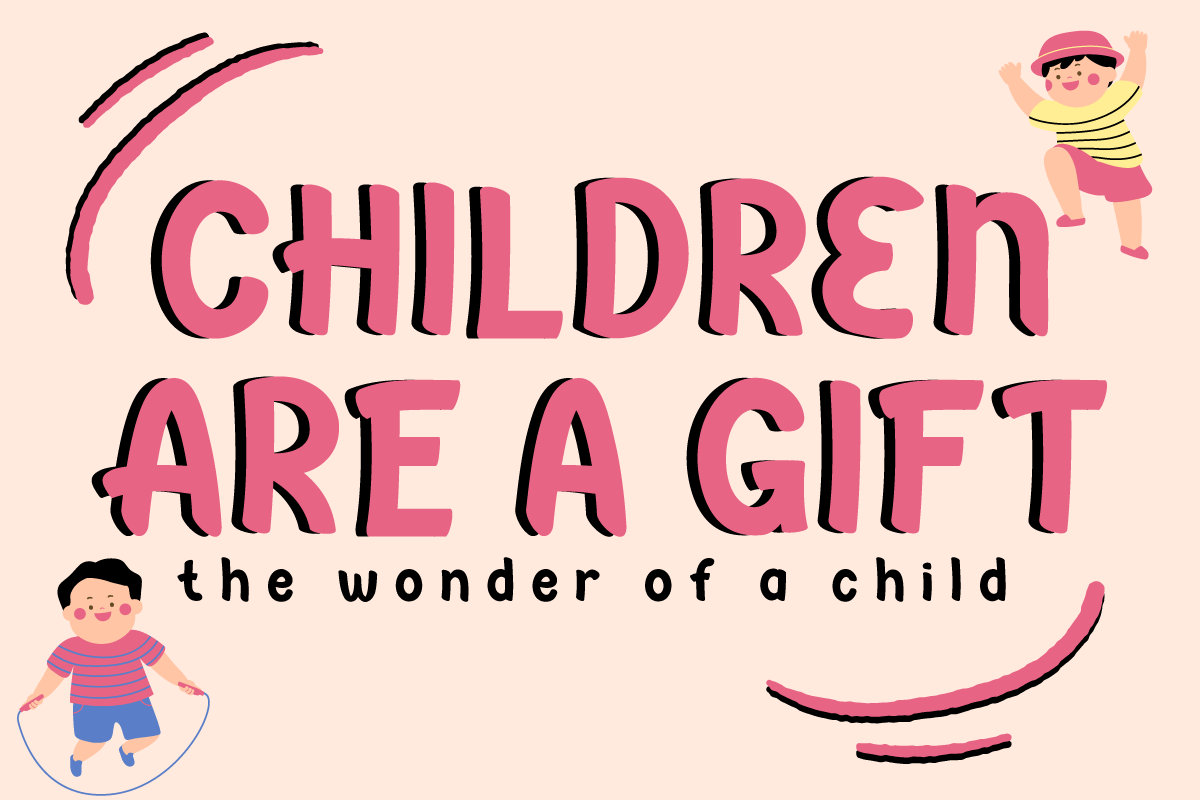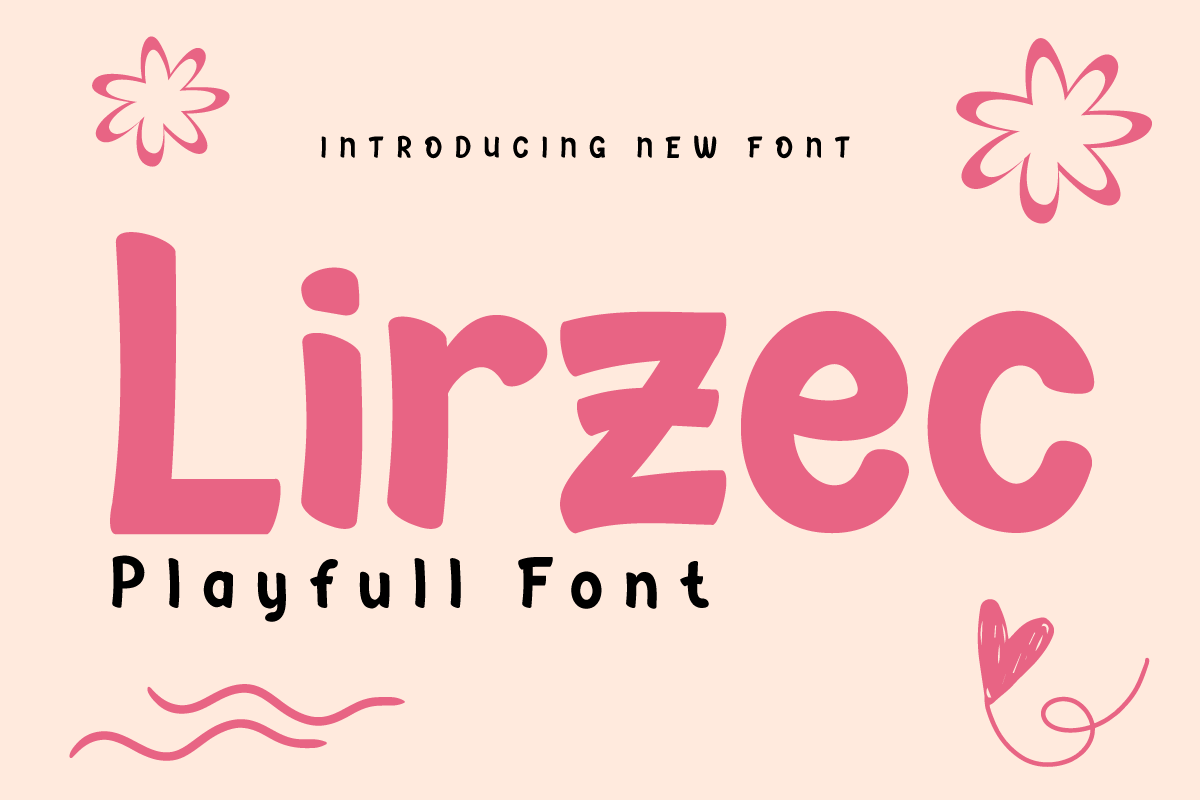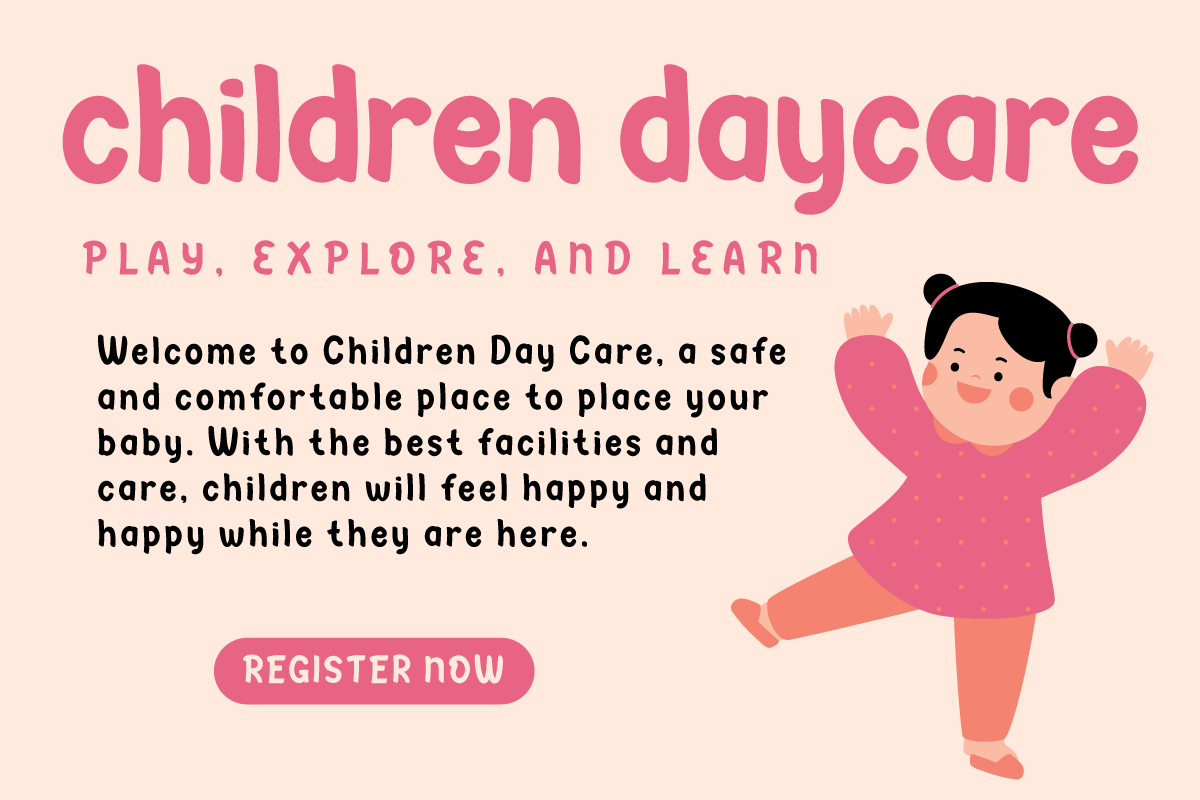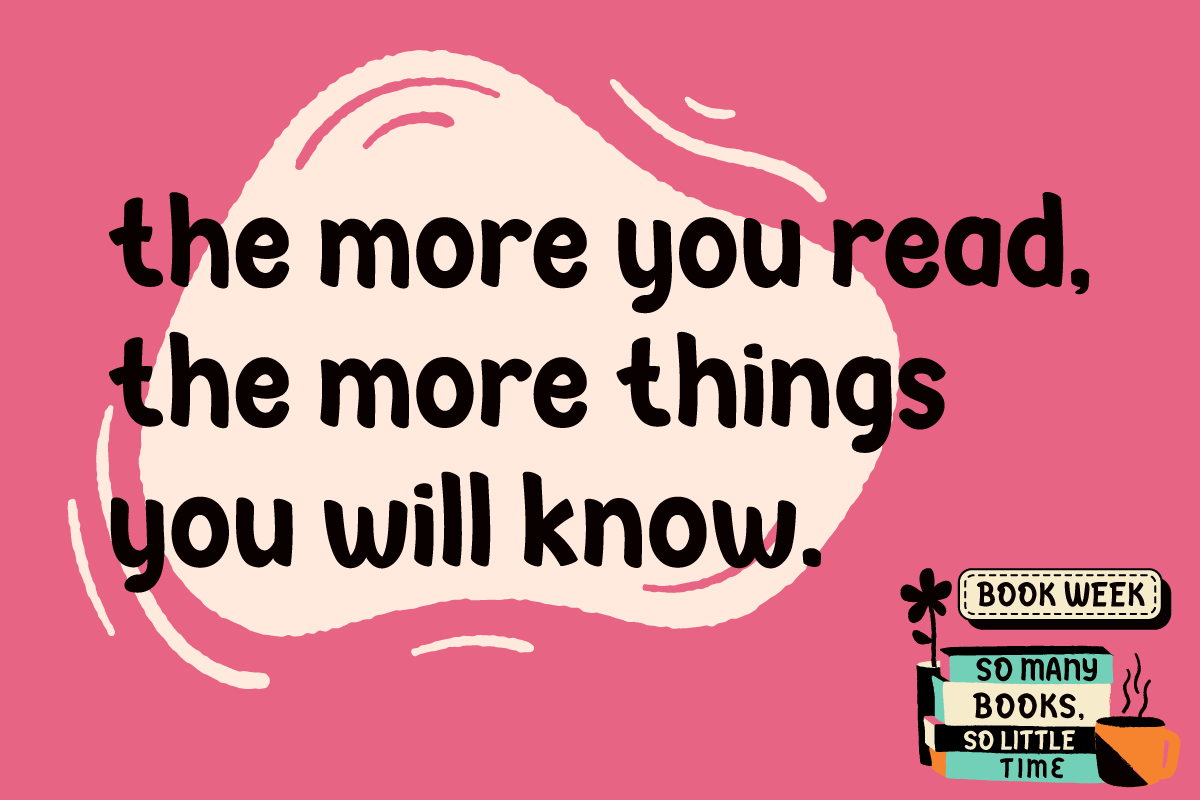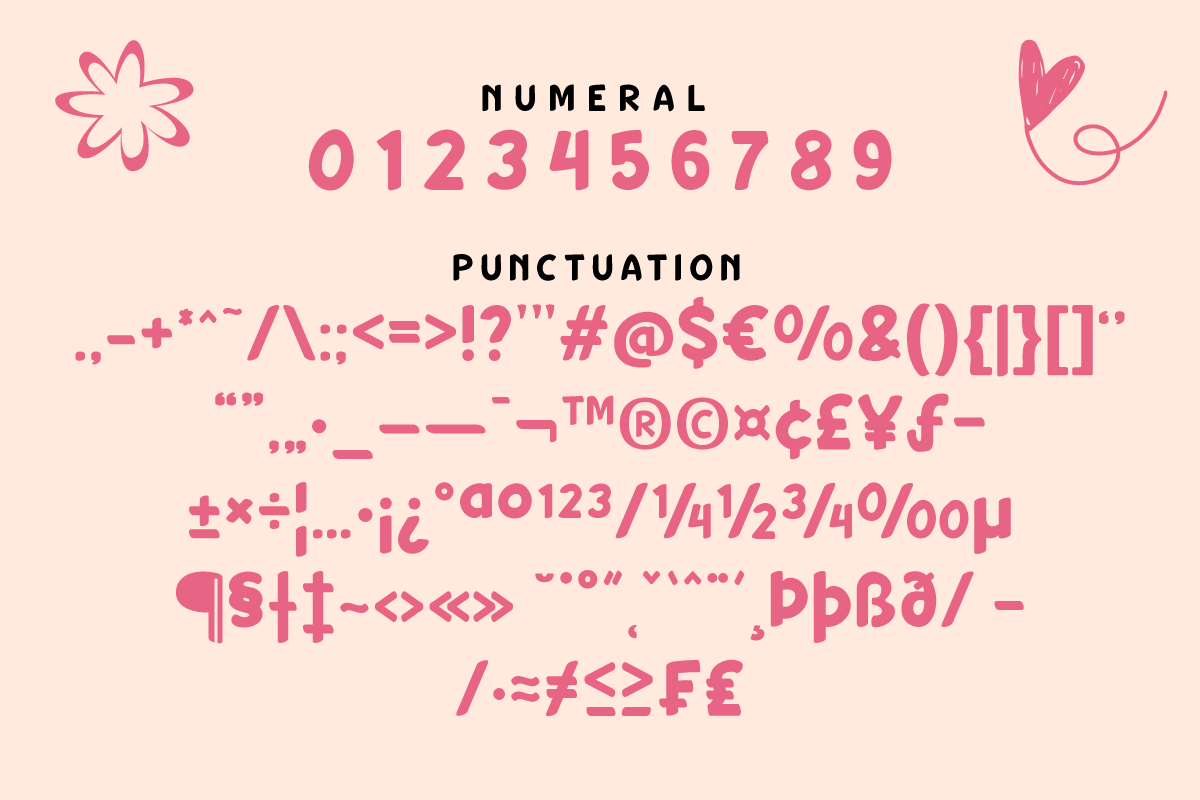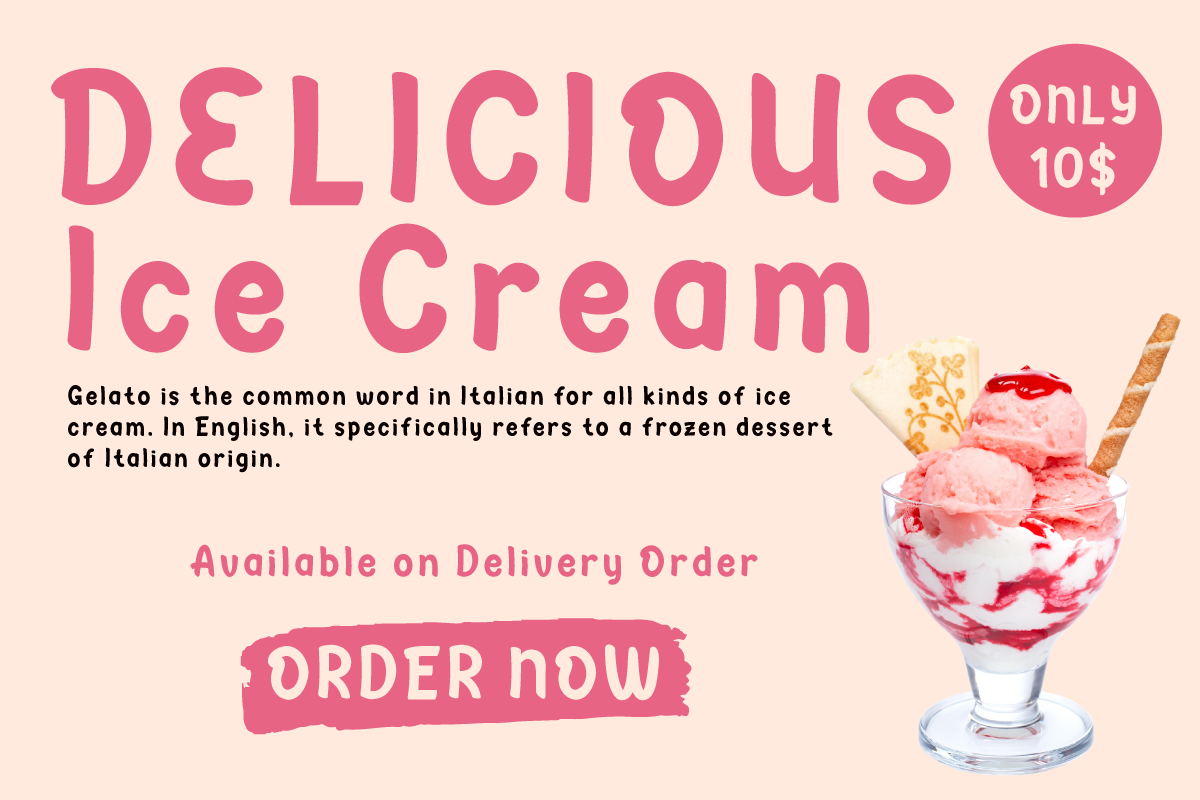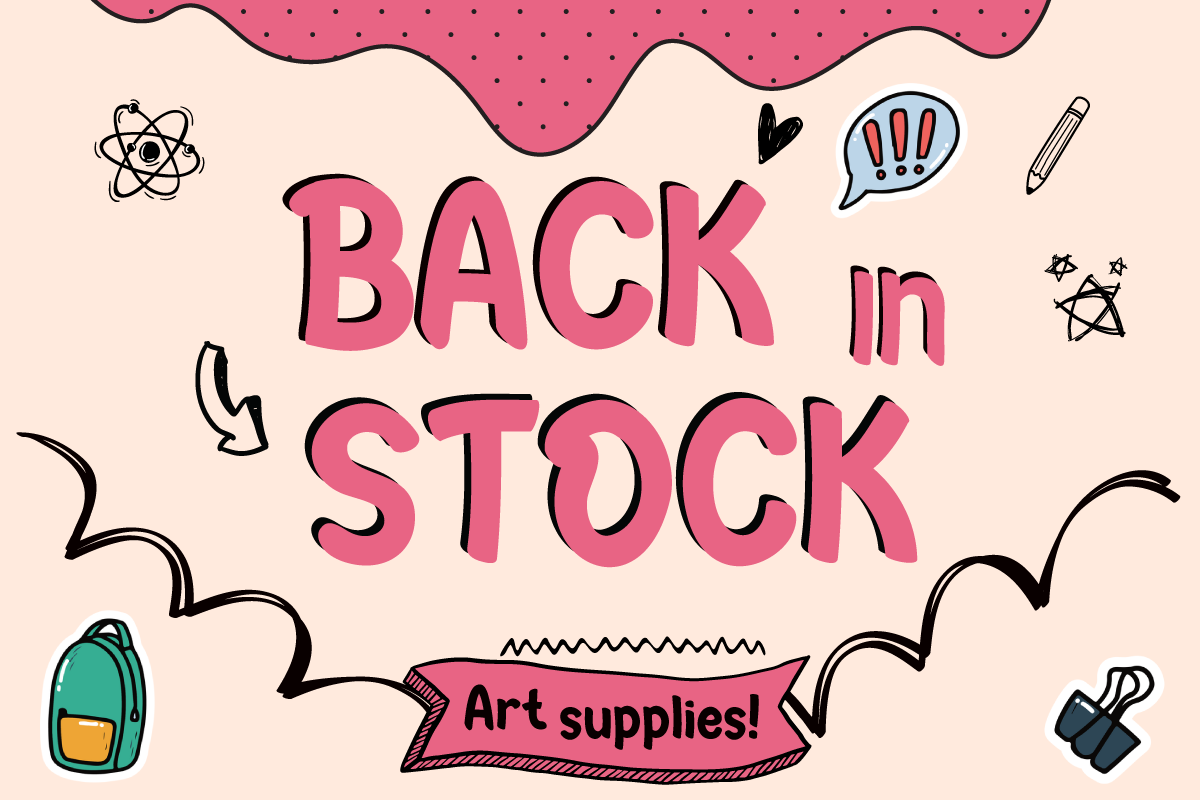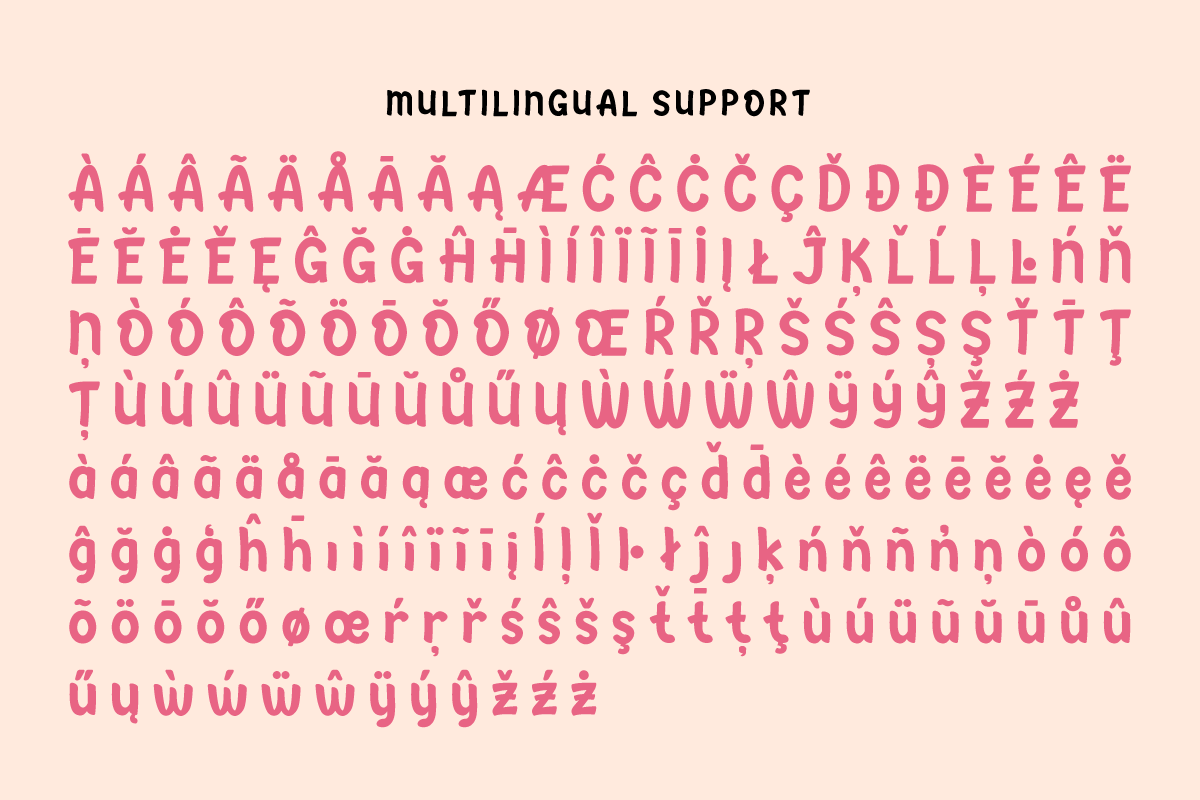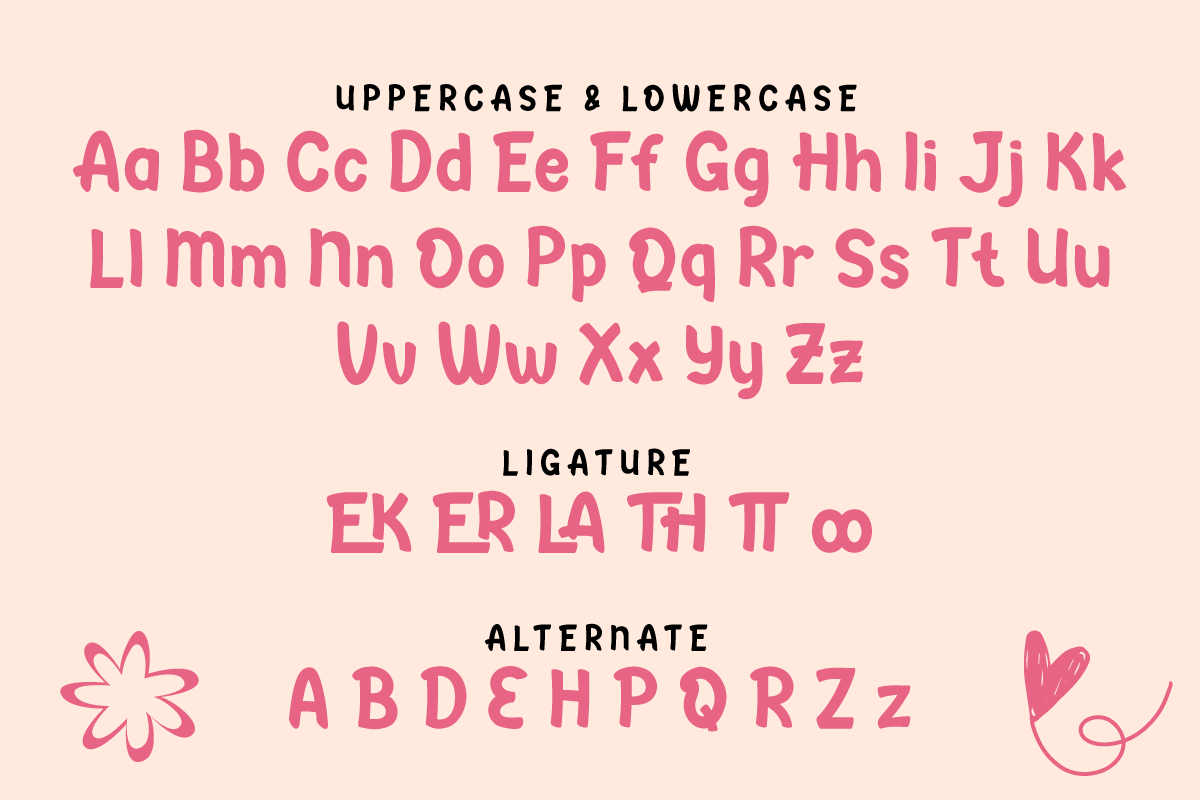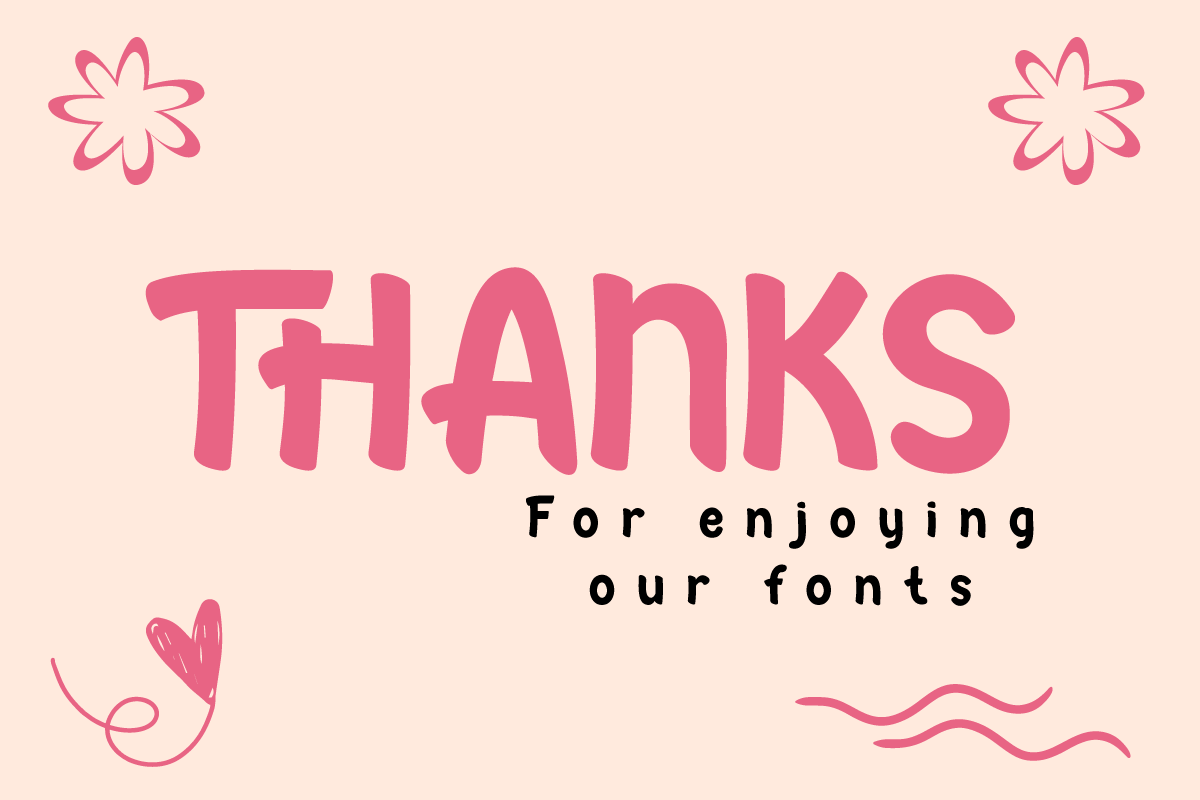
Lirzec | Playful Font Display
Introducing "Lirzec Font" - Where Playfulness Meets Creativity!
Lirzec Font is your gateway to adding a delightful touch of whimsy to your designs. This playful typeface is designed to infuse your projects with a sense of joy and imagination.
With its charming and unique characters, Lirzec Font is perfect for children's books, eye-catching posters, and distinctive branding that demands attention. Let your creativity run wild as you bring your ideas to life with the playful spirit of this font.
Whether you're crafting invitations that radiate cheerfulness or designing logos that leave a memorable impression, Lirzec Font is the perfect choice to make your projects stand out.
- Alternate, Ligature